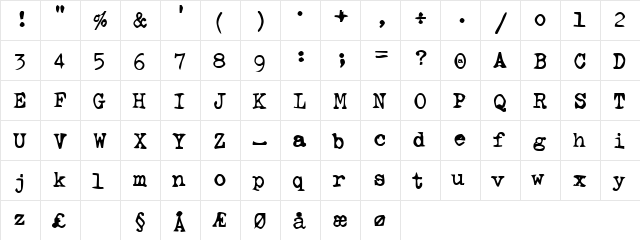
Ghostwriter Regular Font Preview
Ghostwriter Regular
Ghostwriter Regular Font Details
Design Context for Ghostwriter Typeface
Ghostwriter takes a measured approach to typography — its balanced proportions and neutral character make it a reliable workhorse for both digital and print work.